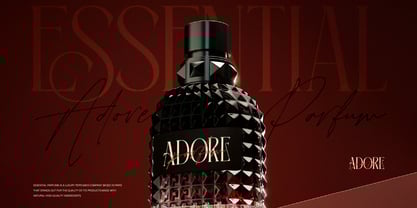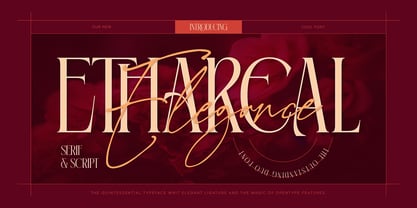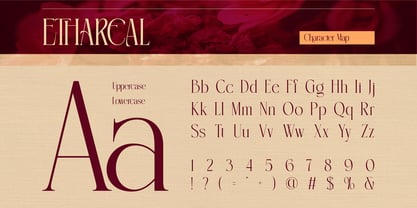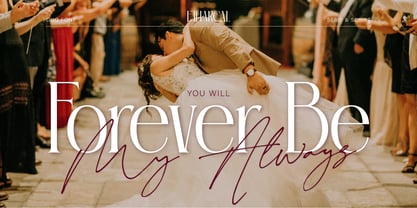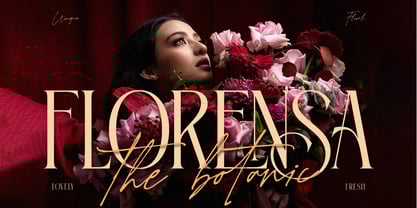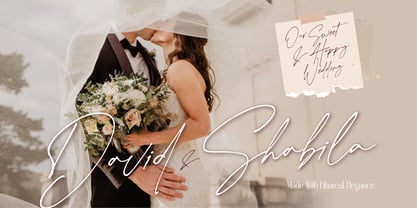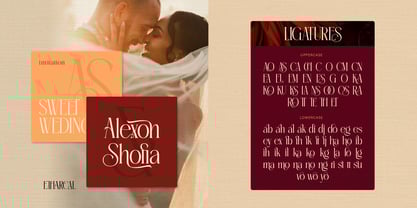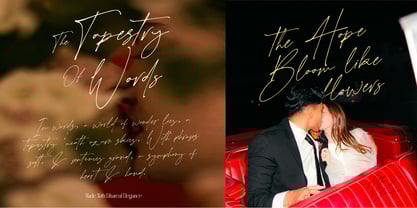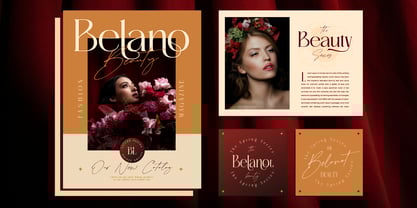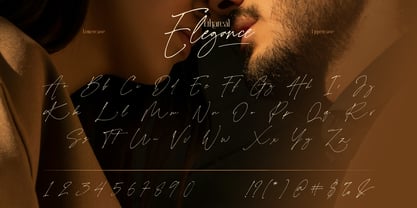
Ethareal Elegance
La familia tipográfica Ethareal Elegance fue diseñada por Eric Kurniawan y publicada por Burntilldead. Ethareal Elegance contiene 2 estilos y opciones de paquete familiar.
Introducing Ethareal Elegance, duo font that combines classic serif with flowing script. This combination creates harmonious and timeless beauty. The font is as beautiful as a couple in love. With alternates and ligatures, this font will never go out of style and can be used for various design project that need touch of elegance. Perfect for branding and logos, wedding invitation, editorial design, packaging design, social media and many more
Features:
• A - Z set (Uppercase & Lowercase)
• Number
• Punctuation
• Alternates
• Ligatures
• Multilingual